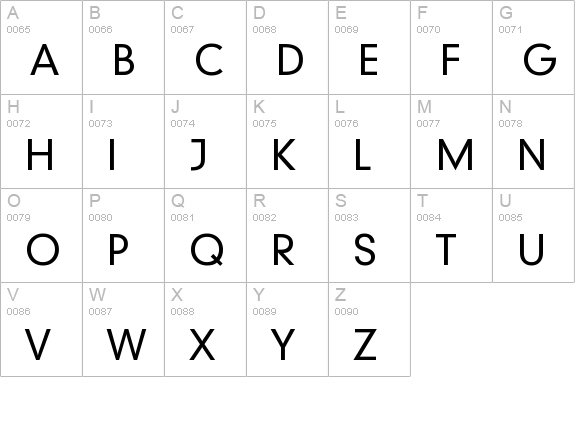
Geo 579 Normal is the standard, neutral variant in the Geo typeface family \xE2\x80\x94 well suited to general body text, paragraphs, and standard typographic work.
Geo 579 Normal font is a sleek and modern typeface that exudes sophistication and professionalism. Its clean lines and balanced proportions make it perfect for a wide range of design projects, from branding to editorial layouts. This versatile font is an excellent choice for both print and digital applications. Best of all, Geo 579 Normal font is available for free download at FontsMarket.com. This means you can easily access this high-quality typeface and incorporate it into your projects without any cost. Don't miss out on the opportunity to enhance your designs with this stylish and elegant font – download Geo 579 Normal today!